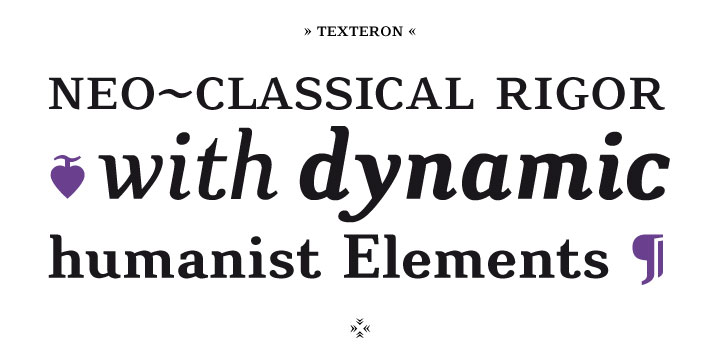
CA Textron Font is perfect for aerospace industry branding, aviation technology marketing, defense contractor communications, engineering firm presentations, high-tech manufacturing signage, corporate aerospace documentation, military aviation materials, advanced technology conferences, precision instruments packaging, industrial design portfolios, technical training manuals, and professional aerospace publications.
This font is exciting because it embodies the precision engineering and technological excellence that defines the aerospace and defense industries, featuring meticulously crafted letterforms that communicate with the same exacting standards and unwavering reliability demanded in aviation systems where human lives depend on absolute precision and zero tolerance for error. The sophisticated character design captures both the cutting-edge innovation of modern aerospace technology and the rigorous quality control that ensures every component meets the highest safety and performance standards. Each letter demonstrates the kind of systematic excellence and technical mastery that transforms ordinary text into communications worthy of mission-critical applications and life-or-death reliability requirements.
The CA Textron Font family includes multiple weights from light to bold, with corresponding italic styles, condensed variants for technical documentation, and comprehensive character sets supporting engineering terminology and international aerospace standards. Advanced versions feature enhanced legibility for technical applications, specialized symbols for aerospace documentation, optimized spacing for technical manuals, and precision rendering that maintains clarity across all professional and industrial applications.
Whether you're developing aerospace industry branding, creating technical documentation, or designing high-tech corporate communications, CA Textron Font Free Download provides the engineering precision and aerospace-grade reliability your project needs to communicate with the same excellence and trustworthiness that defines the aviation and defense industries. This typeface transforms ordinary text into professional communications that meet the rigorous standards of aerospace engineering and defense contracting. The font's technical character makes it essential for organizations operating in high-stakes industries where precision matters. Aerospace professionals and defense industry marketers will appreciate how this font brings authentic engineering credibility to their work with its genuinely precise and aerospace-grade character that meets the highest professional standards.